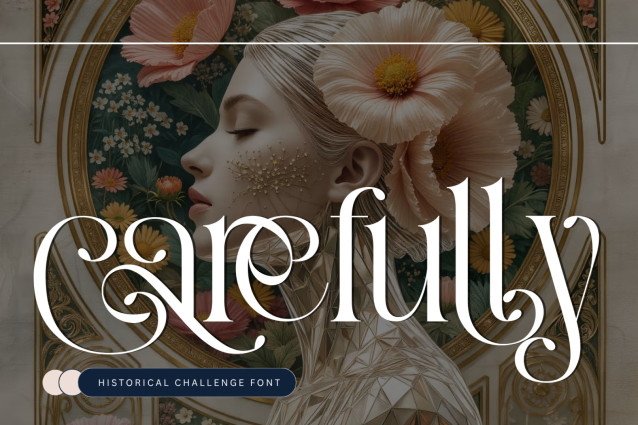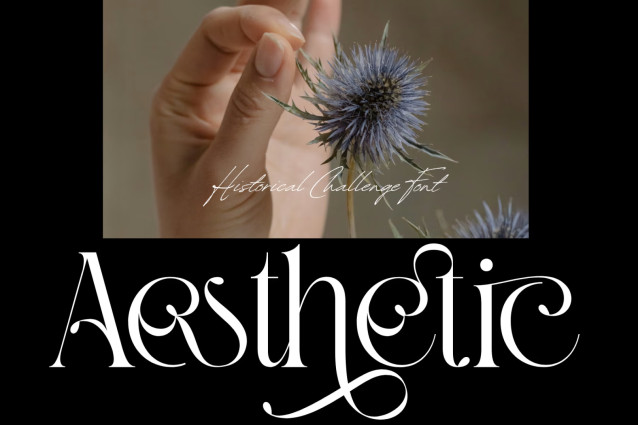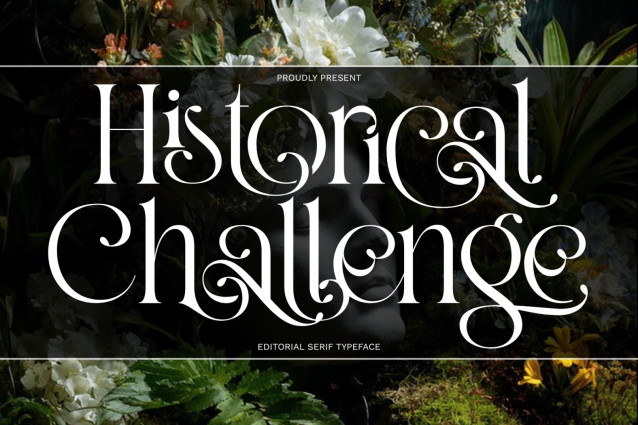
Historical Challenge Font – Modern Ornate Serif & Vintage Flourish Display Font, is an enchanting ornate serif font infused with vintage Victorian flourishes, intricate inner swirls, and romantic botanical swashes. Meticulously designed with high-contrast serif stems and graceful teardrop terminals, this typeface weaves classical Renaissance elegance with modern editorial sophistication.
Featuring elaborate curly alternates that coil inside letterforms and sweep dramatically through descenders, Historical Challenge empowers designers to instantly craft regal, fairytale-like typography. It is the ultimate display choice for vintage wedding invitations, fantasy literature book covers, luxury botanical packaging, antique wine labels, fashion magazine headers, and high-end brand insignia.